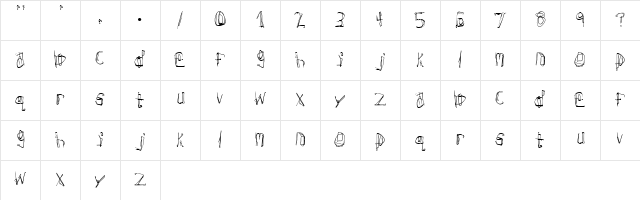
Donner Regular Free Font
Donner Regular
Foundry: [Divide By Zero] Fonts
Designer: Tom Murphy 7
Design Context for Donner
Donner is a composed and adaptable typeface that performs quietly and consistently across a wide range of design contexts.